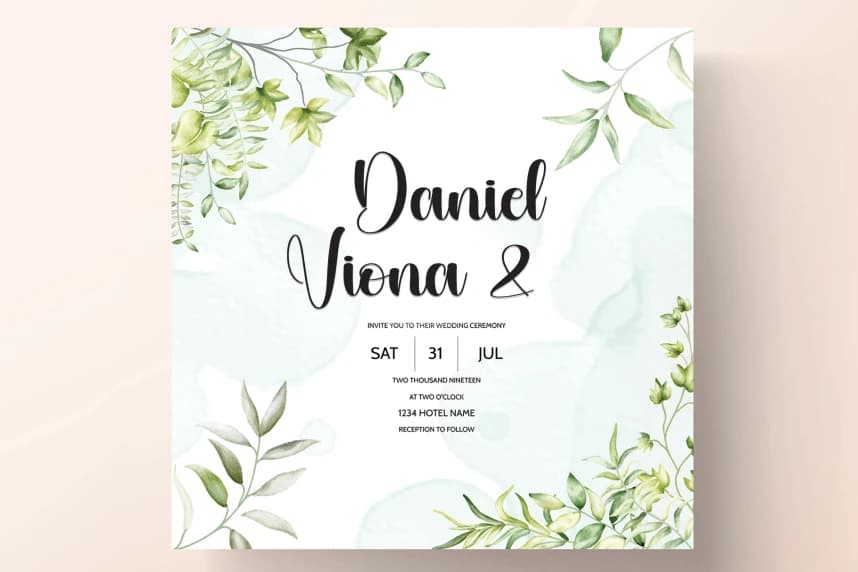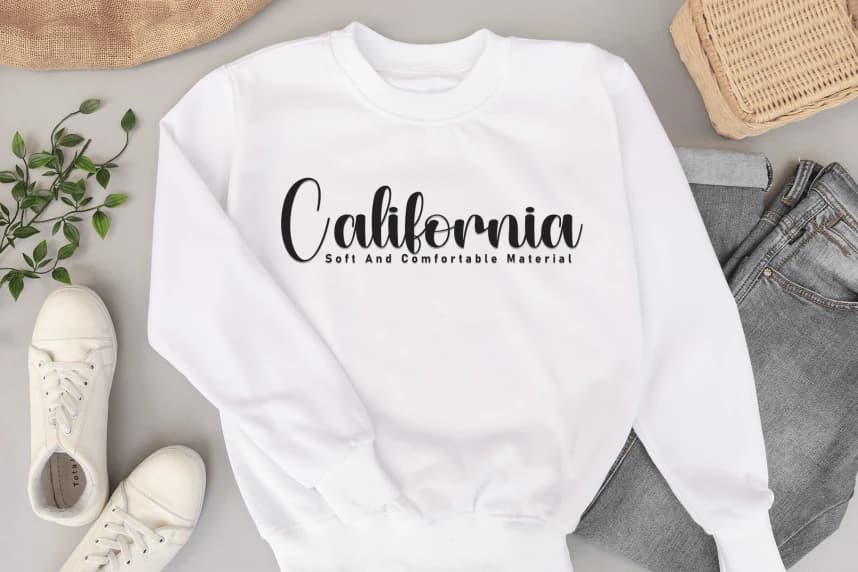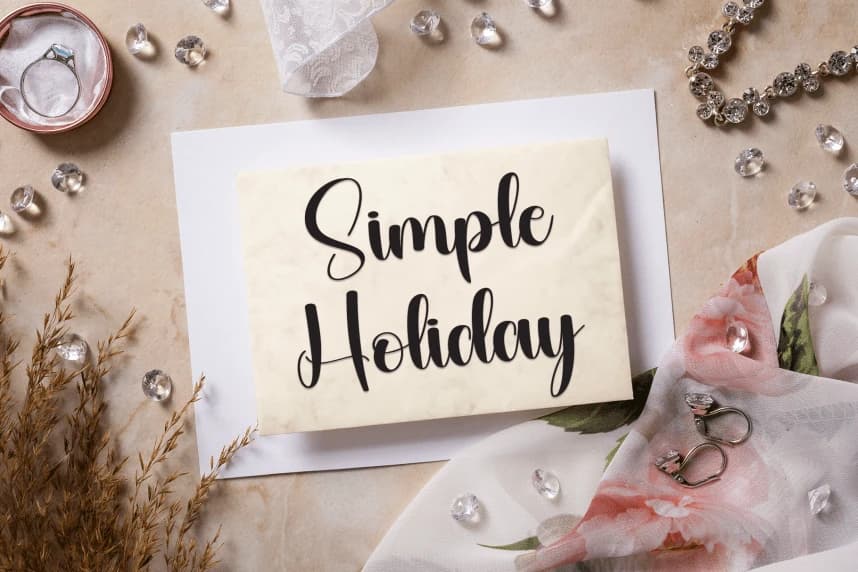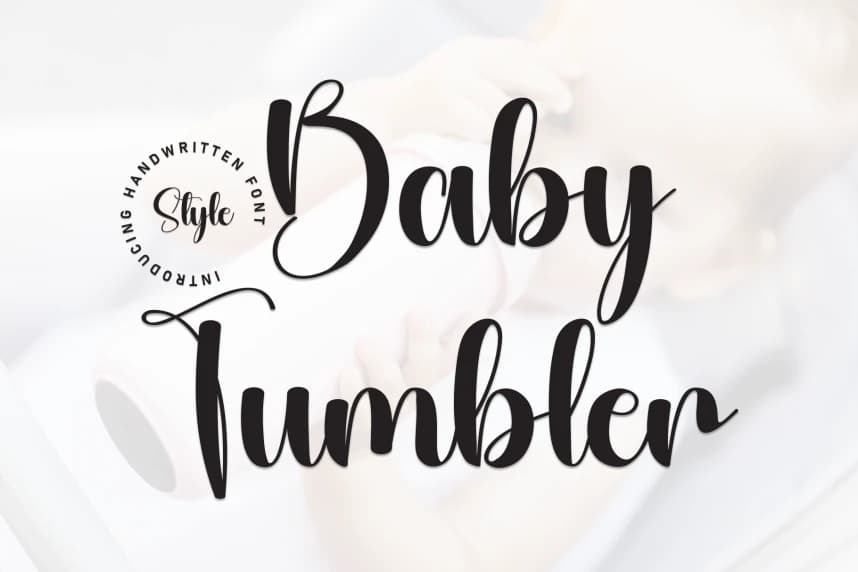
Baby Tumbler Script Font
Baby Tumbler Script Font is a sweet and friendly handwritten display font. Cute and fun, this font is ideal for writing wedding invitations, cards, or any